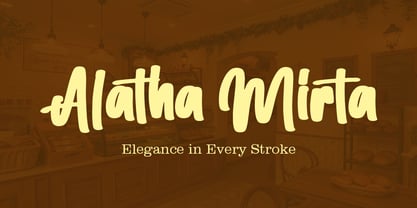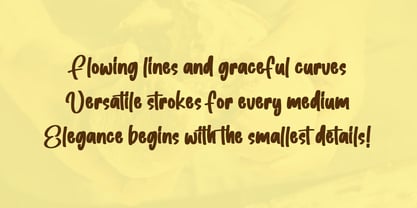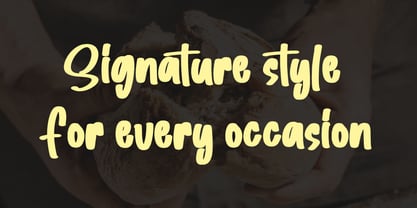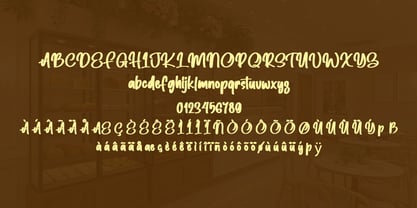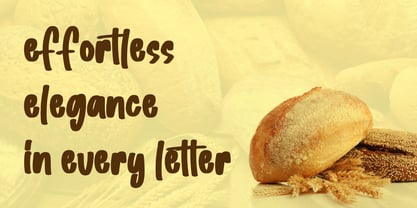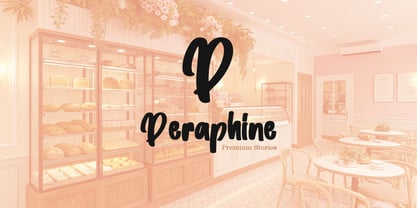
Alatha Mirtha
by Artdorable Foundry
The Alatha Mirtha Font Family was designed by fahmy hidayat and published by Artdorable Foundry. Alatha Mirtha contains 1 styles. More about this family
Alatha Mirtha's features an elegant, flowing script style with smooth, connected strokes that evoke a sense of refinement and handcrafted artistry. Its letterforms are slightly elongated with gentle curves, giving the text a graceful rhythm and natural movement. The overall aesthetic blends modern calligraphy with a classic cursive influence, making it ideal for designs that aim to feel personal, expressive, and visually inviting. It works beautifully for branding, invitations, packaging, and any project that benefits from a warm, stylish, and sophisticated touch.